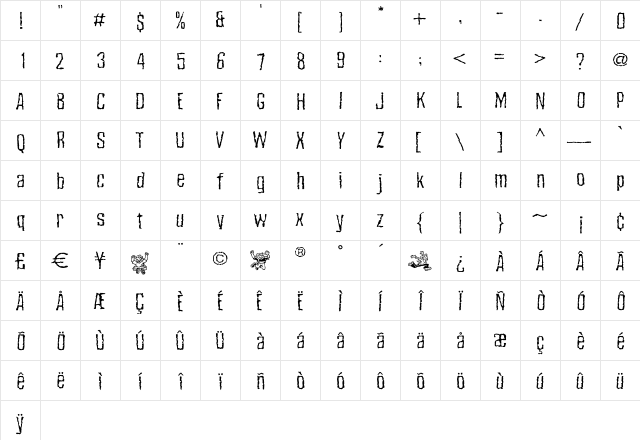
Damage Light
Design Context for Damage Typeface
Damage is a composed and adaptable typeface that performs quietly and consistently across a wide range of design contexts. Its slender proportions lend an understated elegance to any composition.